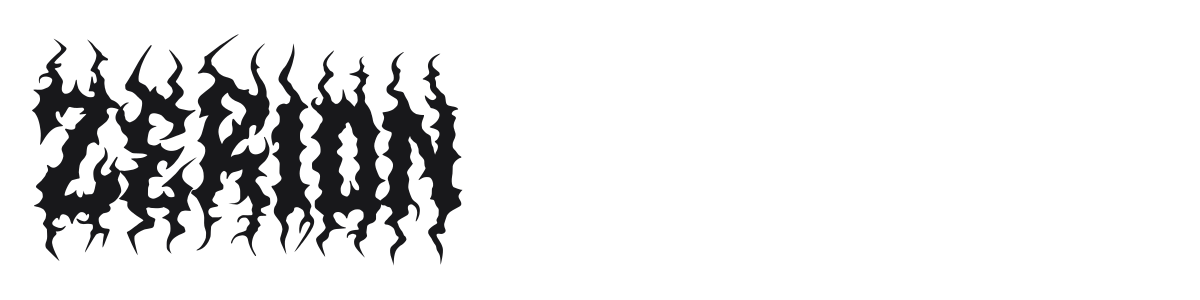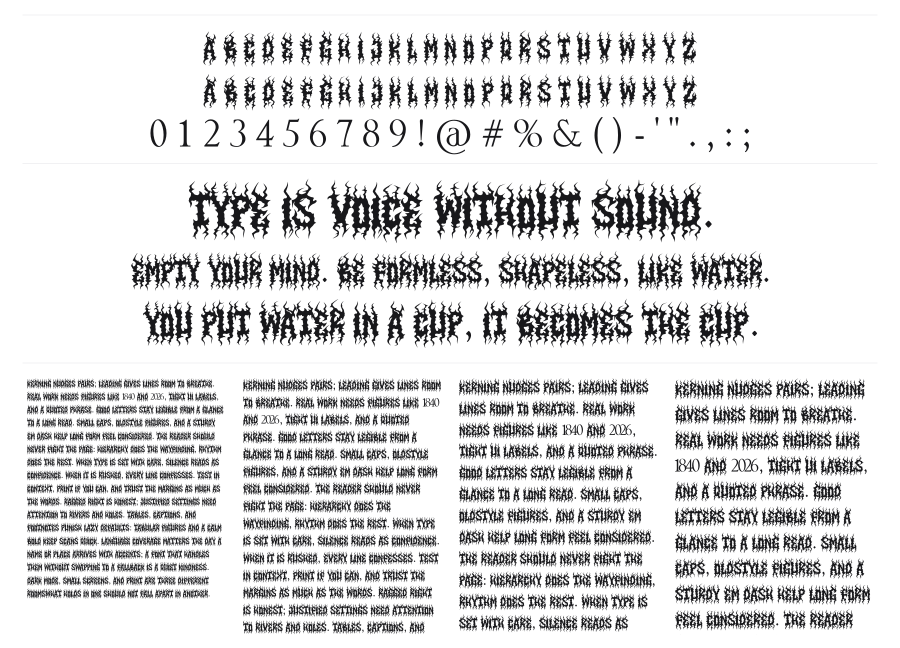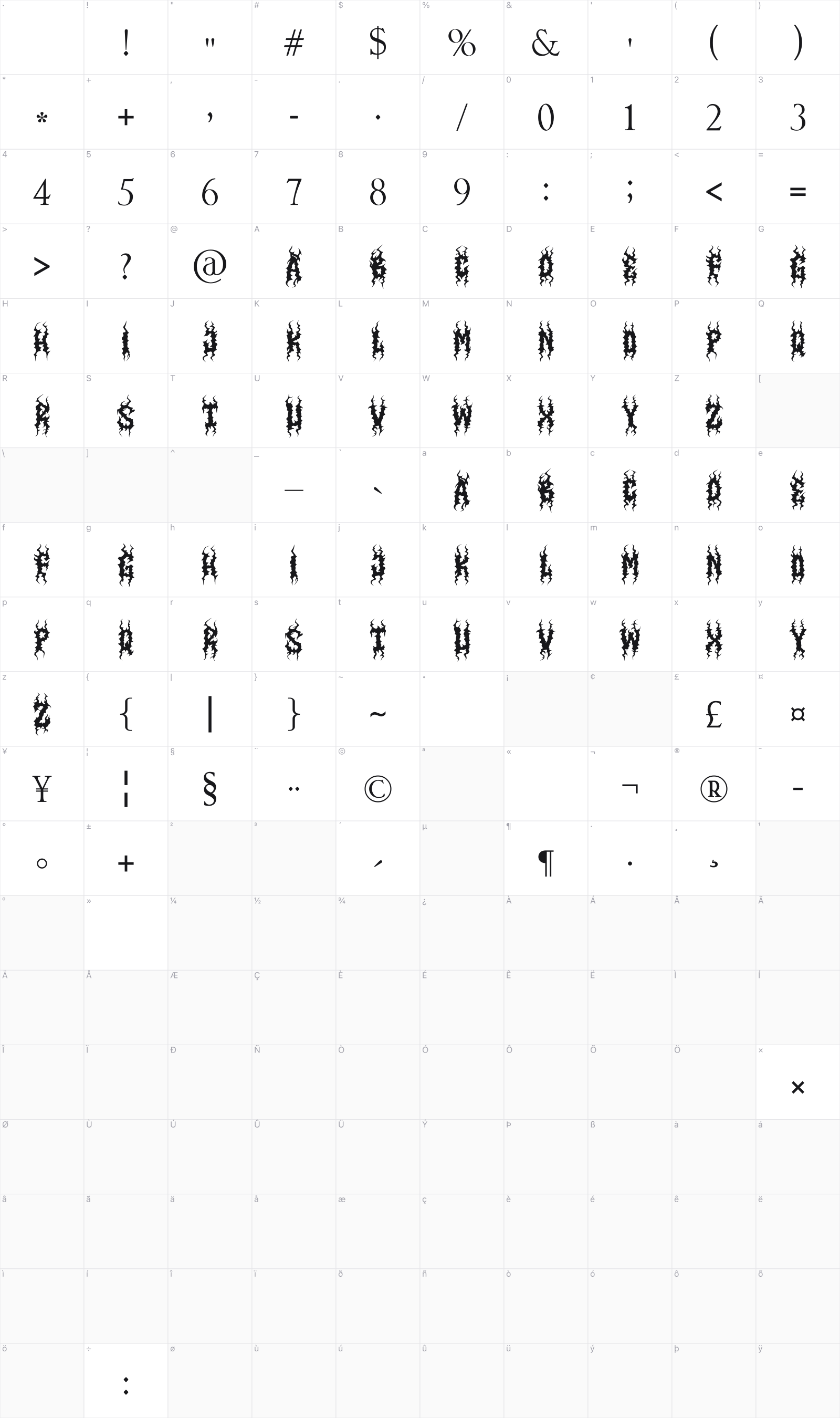
Zerion
Zerion is a black metal display font by Fonday Studio with heavy, jagged characters wrapped in flame-like spikes and torn edges. Every stroke erupts into sharp, organic protrusions that give the type a ferocious energy drawn straight from extreme metal album aesthetics. It works at large sizes where the chaotic detail can breathe.